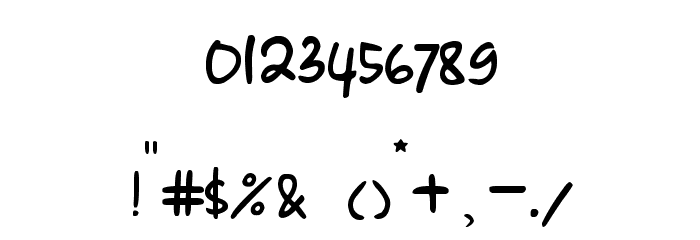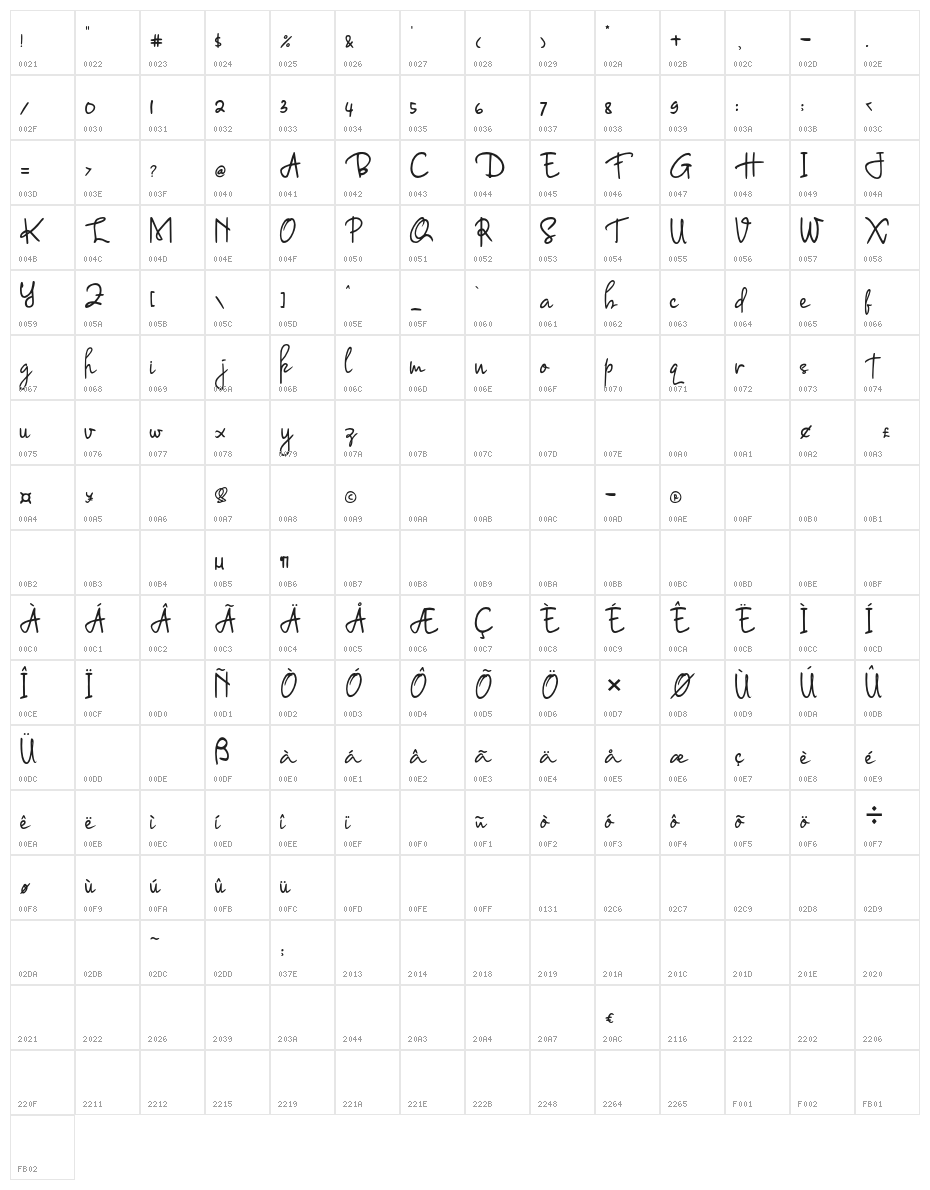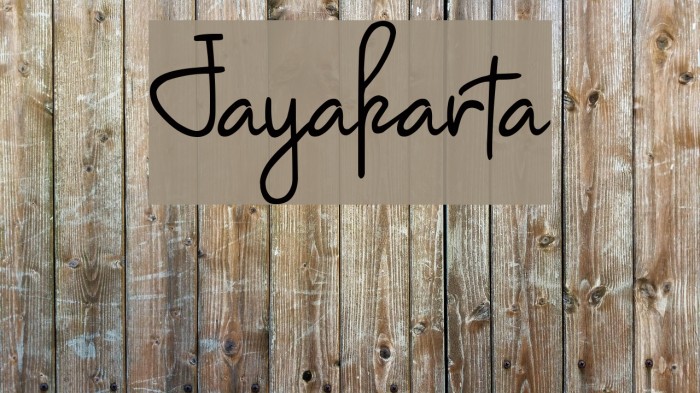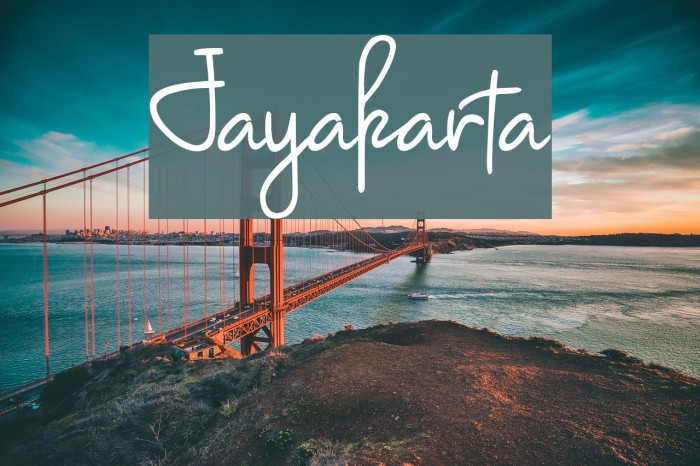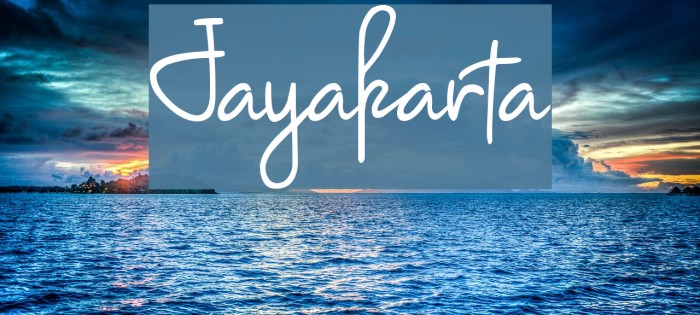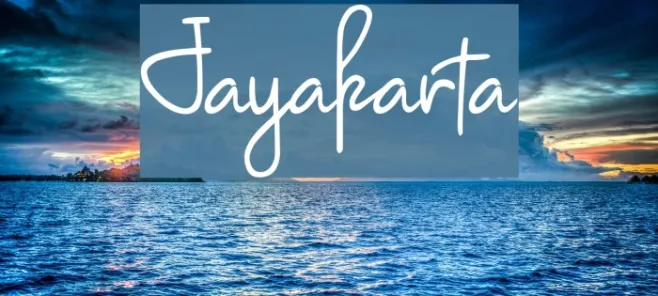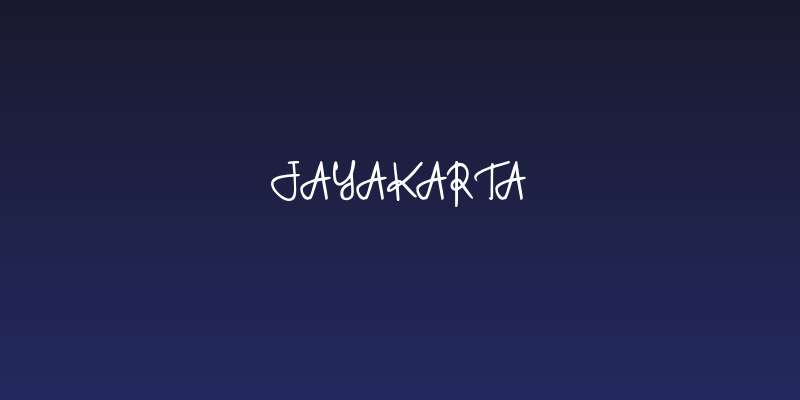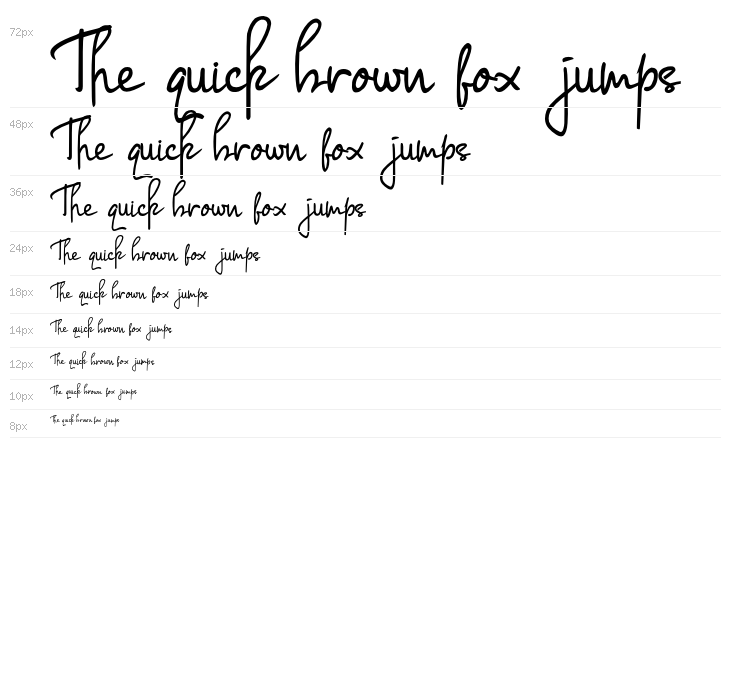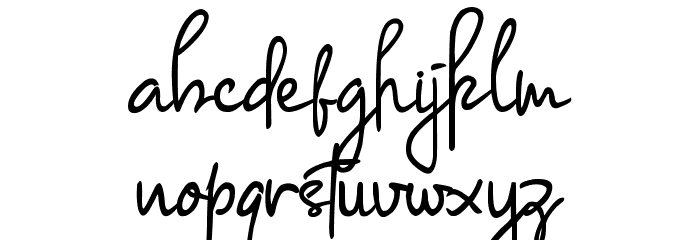
Jayakarta Font
Jayakarta Description
This font features a playful and casual handwritten style, characterized by its flowing and dynamic letterforms. The uppercase letters have a whimsical touch with slightly exaggerated curves, while the lowercase letters maintain a consistent fluidity, enhancing the overall organic feel. The numerals are clear and maintain the same playful aesthetic, making them easily readable. Special characters are creatively integrated, matching the font's overall style. The font's informal and friendly appearance makes it suitable for projects that require a personal touch.